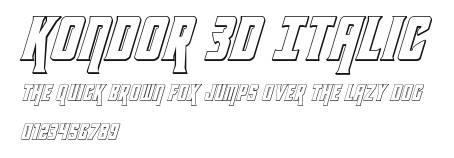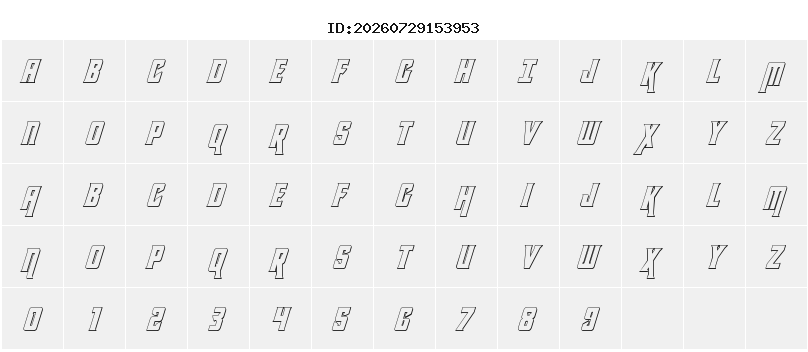
Kondor 3D Italic Preview
• Font Name: Kondor 3D Italic
• Full Font Name: Kondor 3D Italic
About Kondor 3D Italic.ttf
Kondor 3D Italic.ttf is a modern, elegant sans-serif font designed for ultimate readability and visual harmony. Perfect for branding, headlines, web design, and print materials.